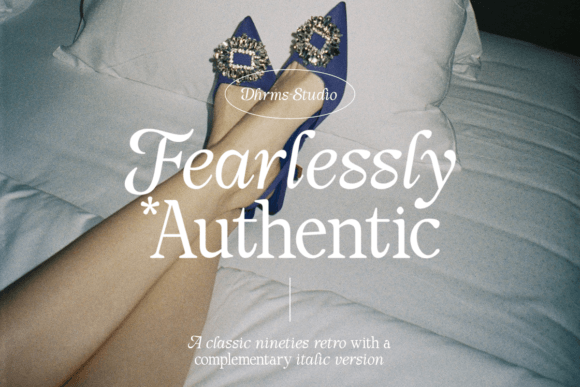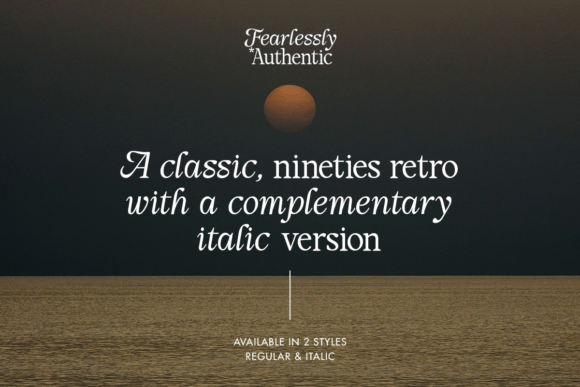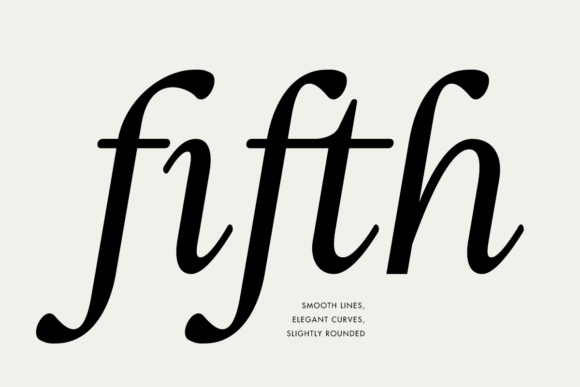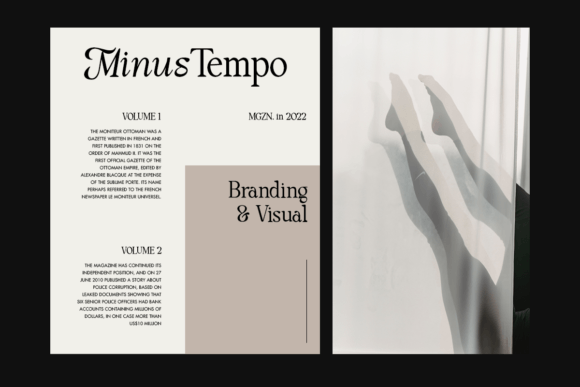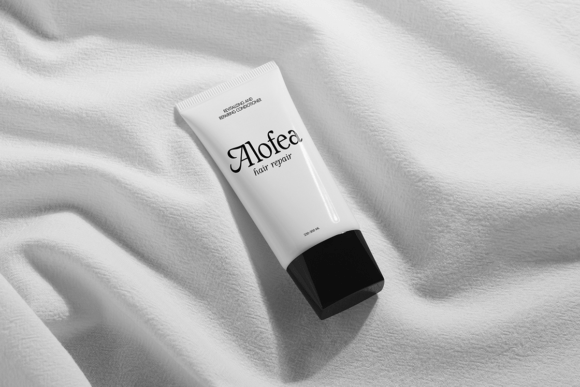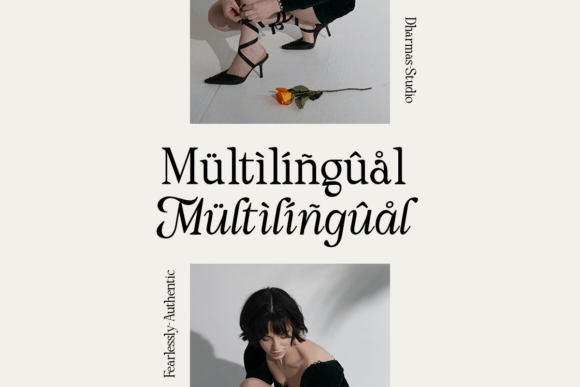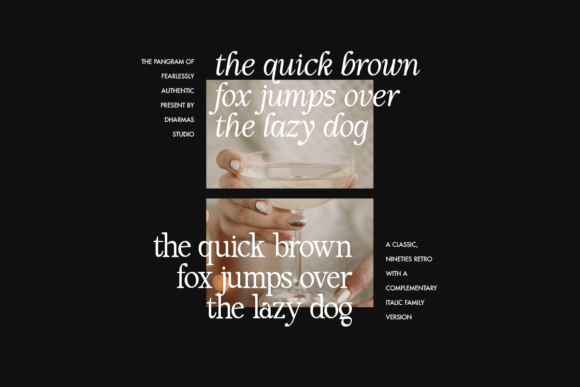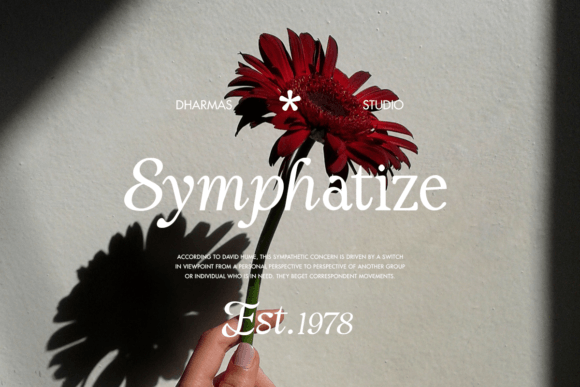
Fearlessly Authentic Font
Say hello to the new classic nineties retro font, Fearlessly Authentic!
The trend is to make thin serif fonts that made the 80s and 90s style, so here you have one but with a different touch. Make it slightly rounded for a retro look and make your design look great!